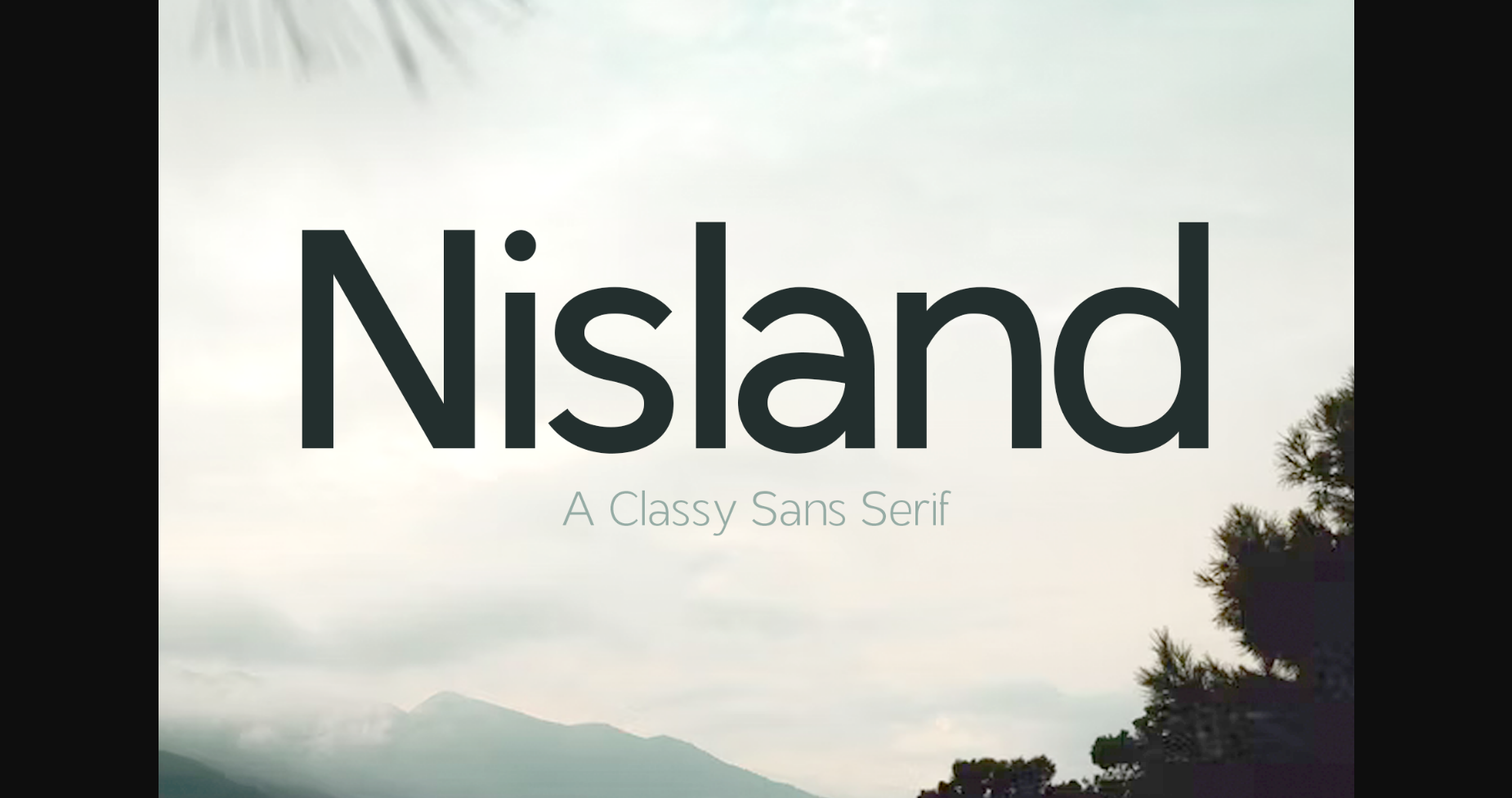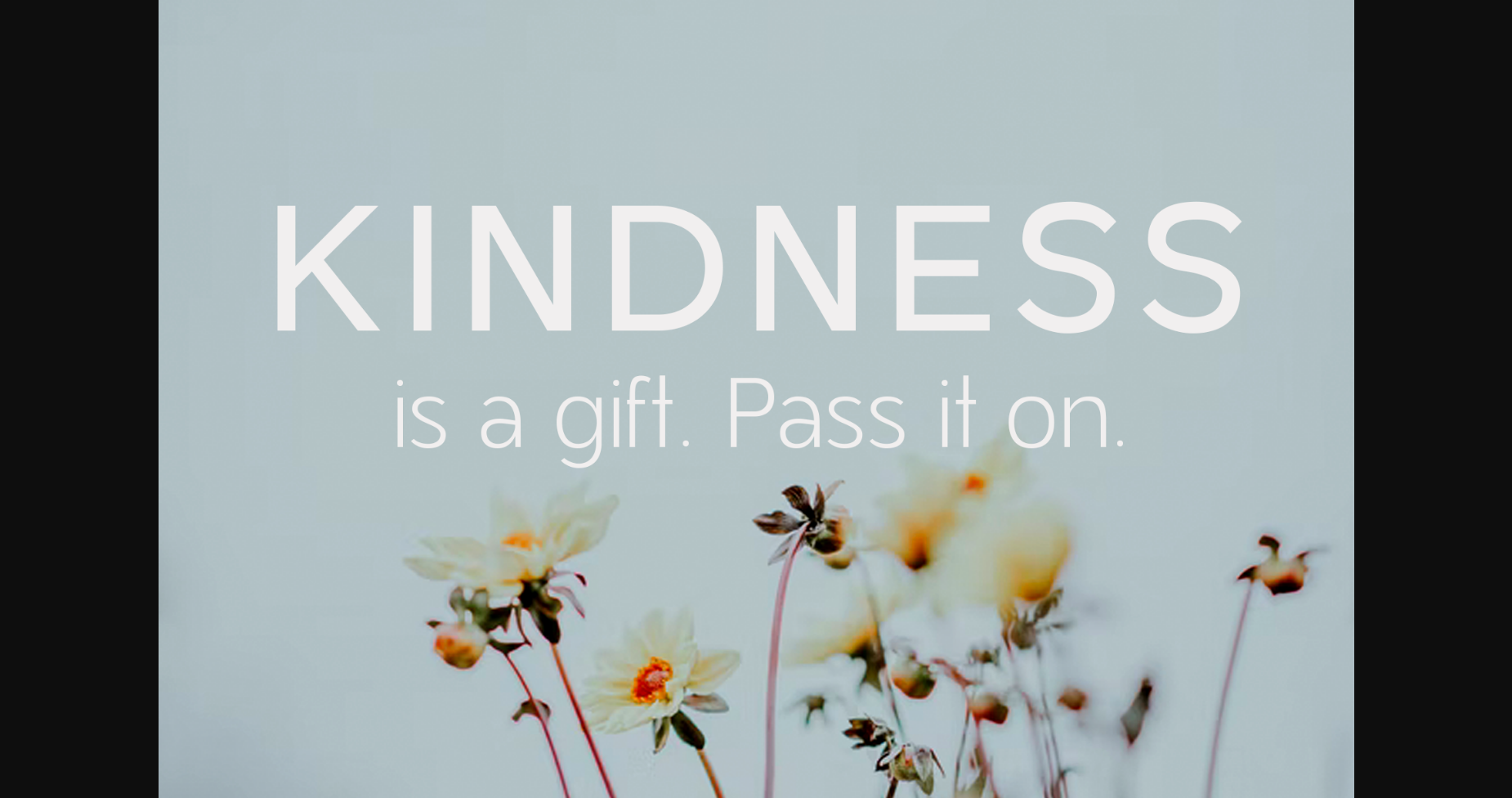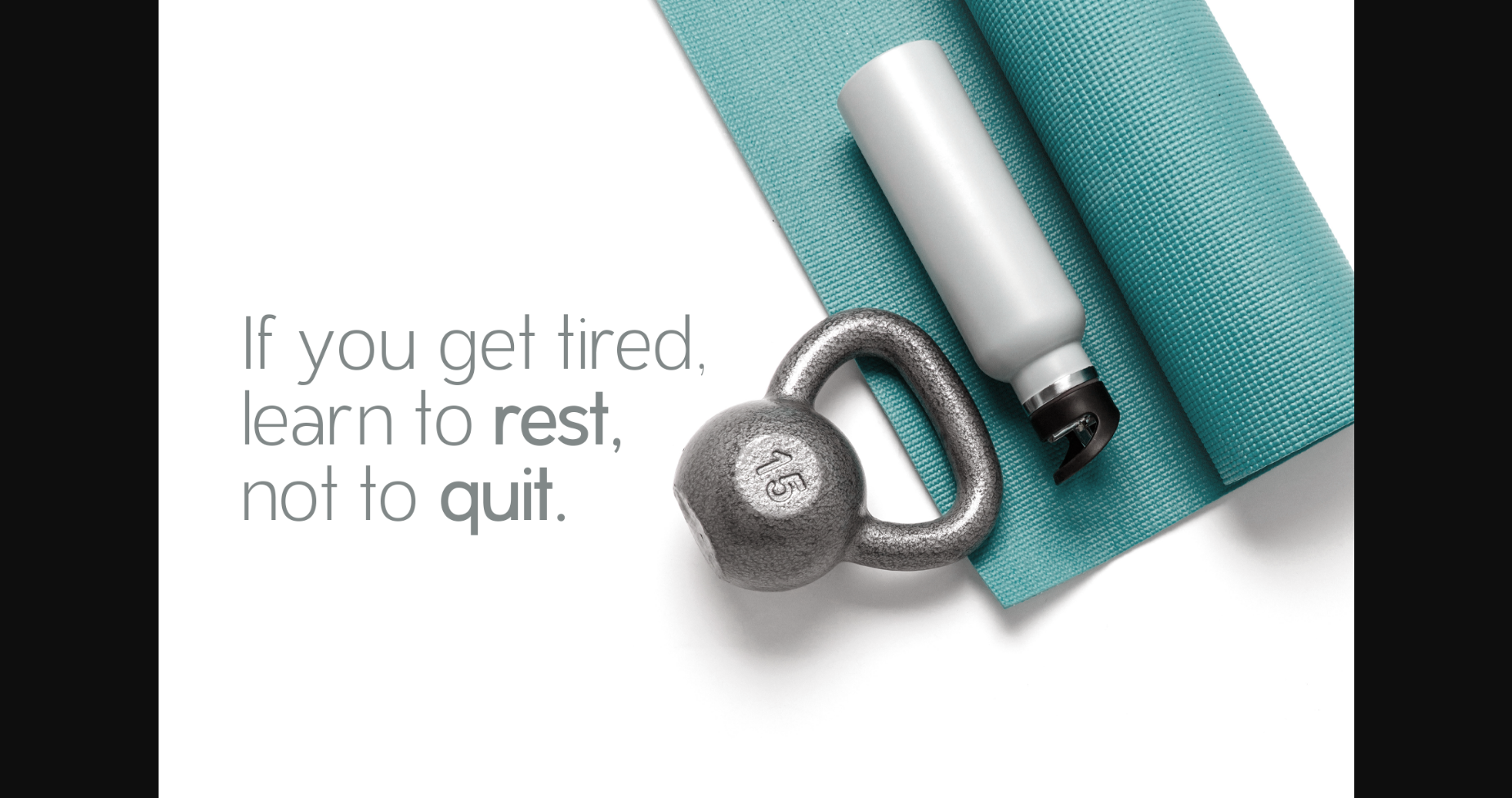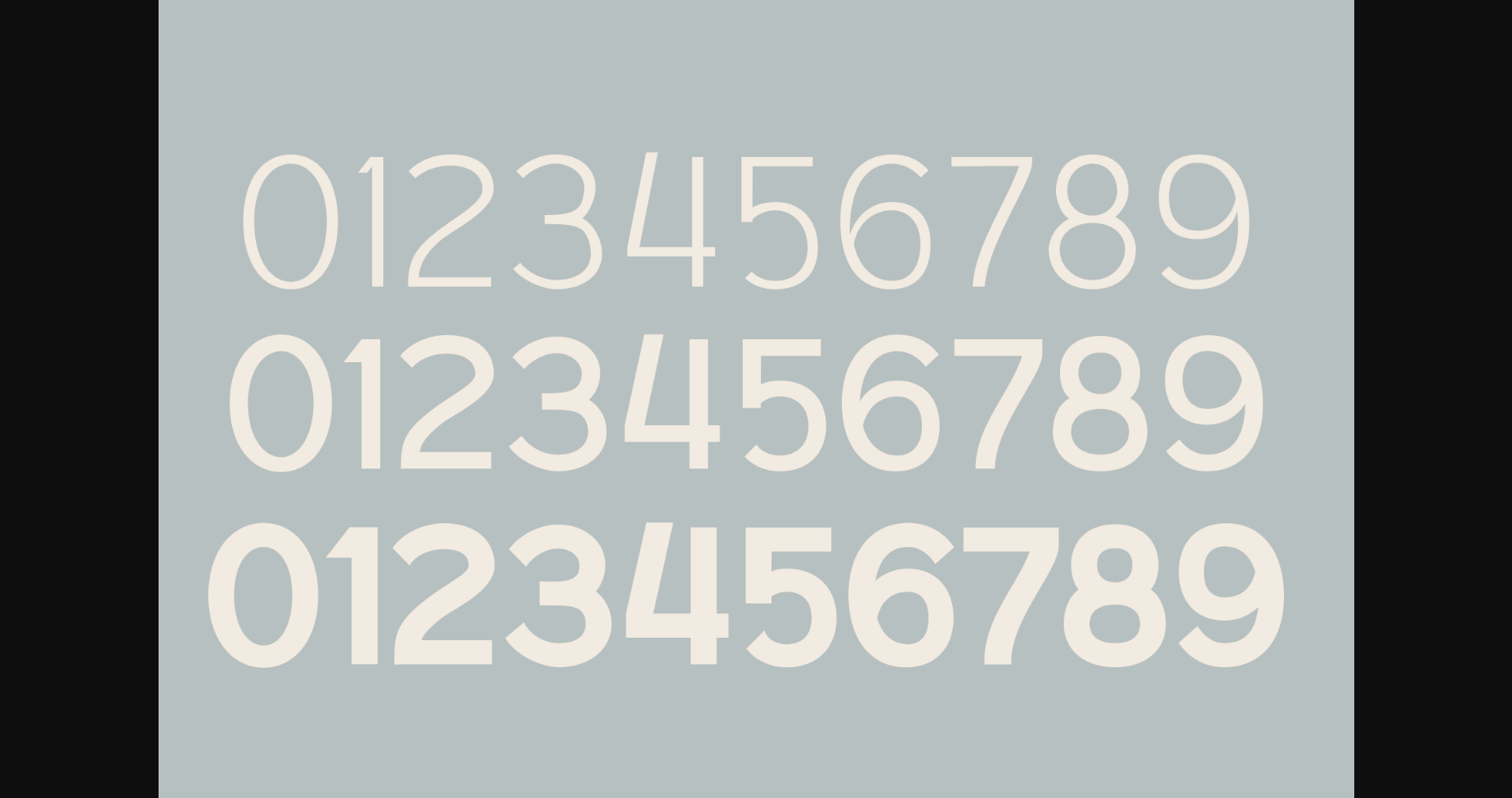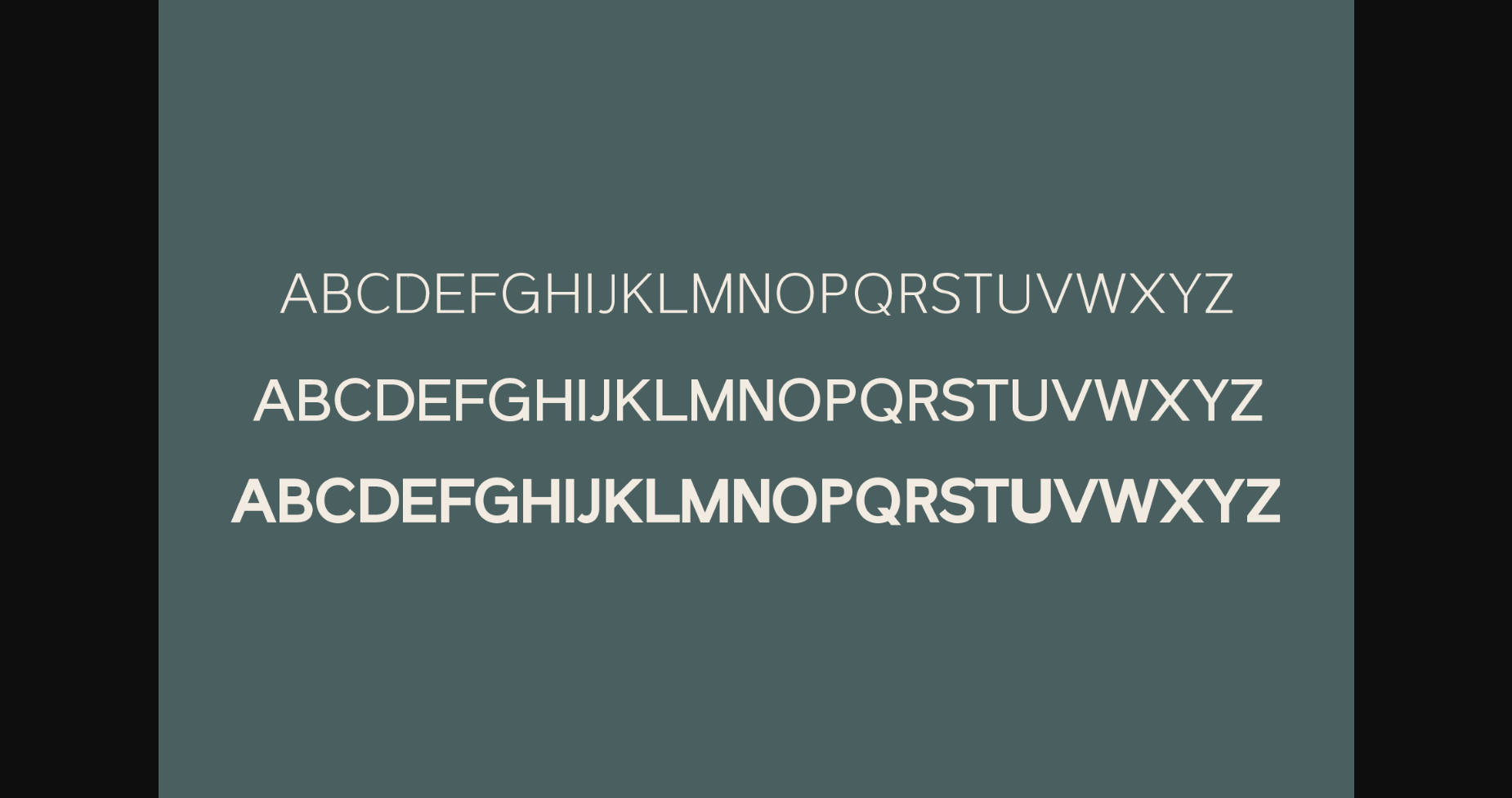
Nisland Font
About Nisland Font
Nisland is a classy and simple lettered sans serif font. Perfect for every project, This typeface creates beautiful headers, titles, and covers.